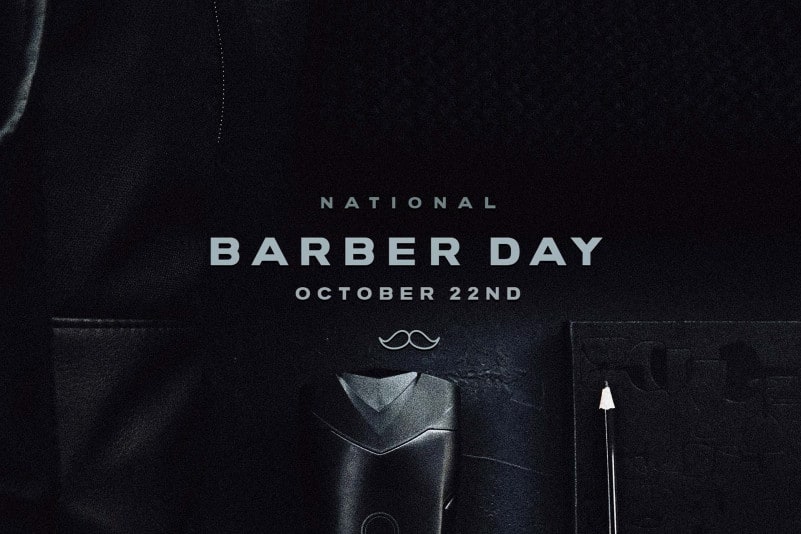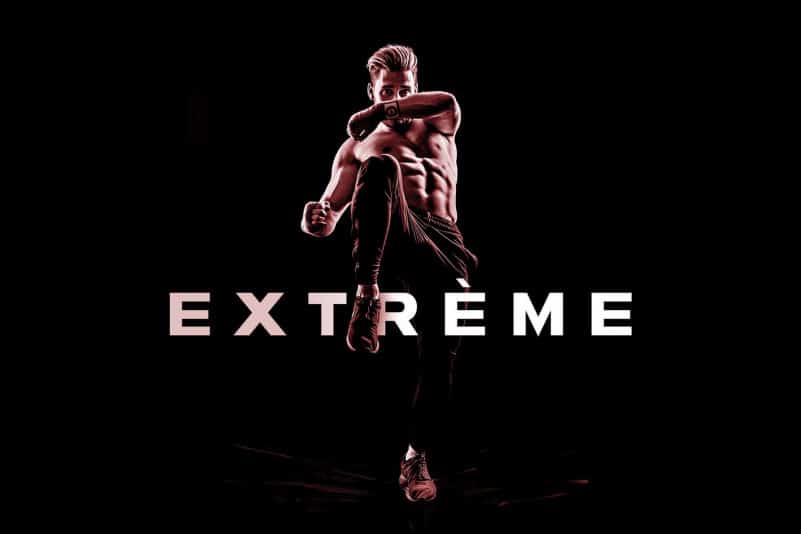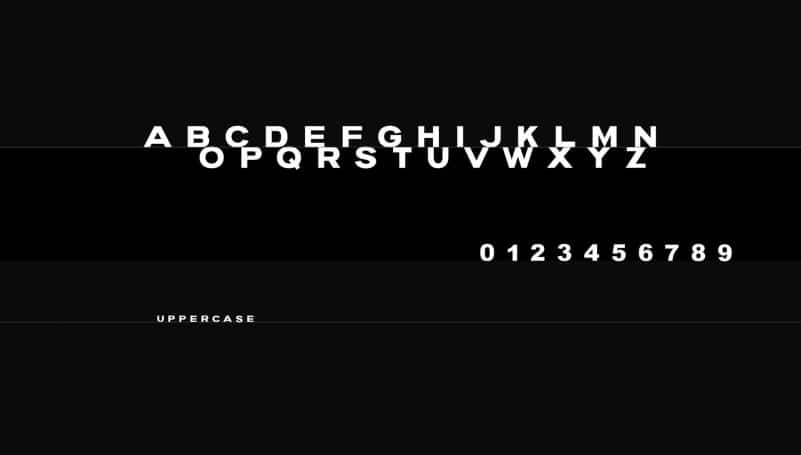
Vianella Sans Serif Font
Say Hello Guy’s . Thank you for looking Vianella Sans Serif Font. This is a display titling sans-serif typeface. It is playful sans serif font . Very suitable to be used for the manufacture quote text, logotype, header magazine, t-shirt design, and concept handmade designs, etc. With its styles ranging from bold to outline, Vlanella is sans serif and can blend as seamlessly into your print projects as it can into your digital designs. Use it alone or mix it up with other fonts, Vlanella is sure to never disappoint!